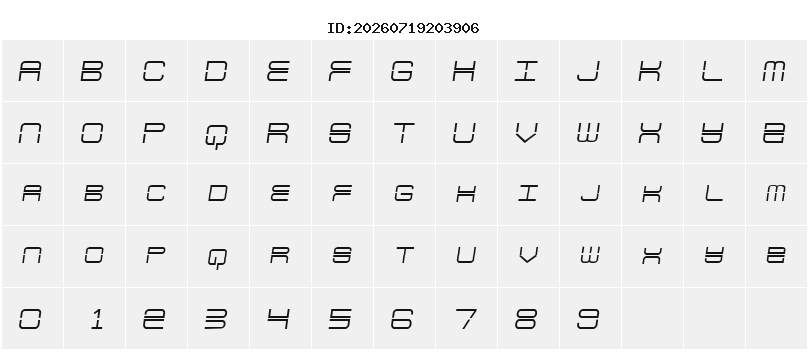
About Escapade.ttf
Escapade.ttf is a modern, elegant sans-serif font designed for ultimate readability and visual harmony. Perfect for branding, headlines, web design, and print materials.